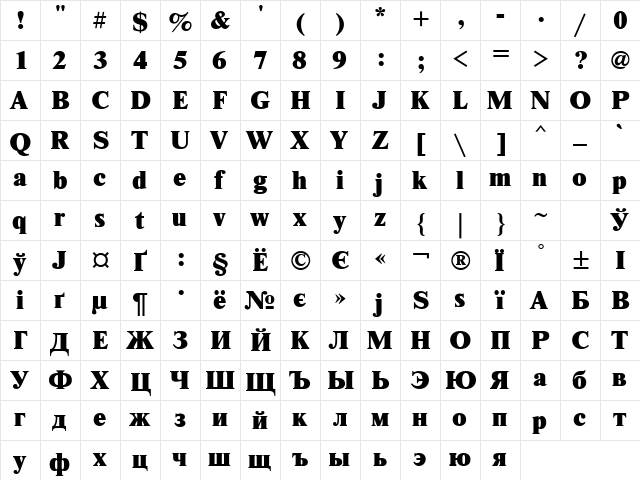
NewtonXC Regular
Design Context for NewtonXC Typeface
NewtonXC takes a measured approach to typography — its balanced proportions and neutral character make it a reliable workhorse for both digital and print work.